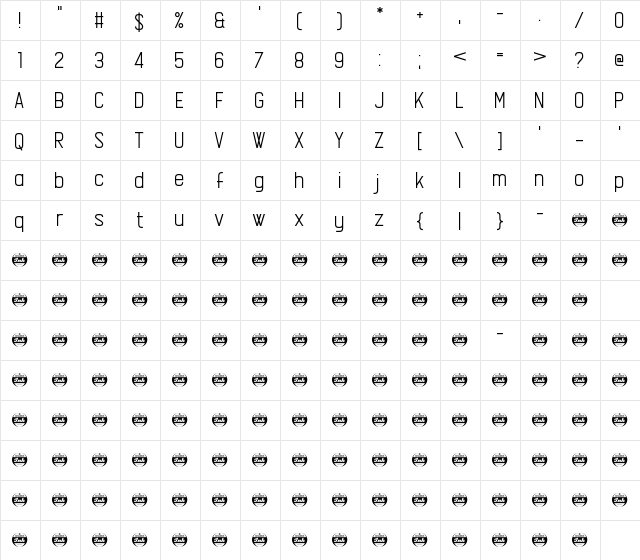
Asleepytiming Regular
| Designer | Allison James |
Design Context for Asleepytiming Typeface
Asleepytiming takes a measured approach to typography — its balanced proportions and neutral character make it a reliable workhorse for both digital and print work.